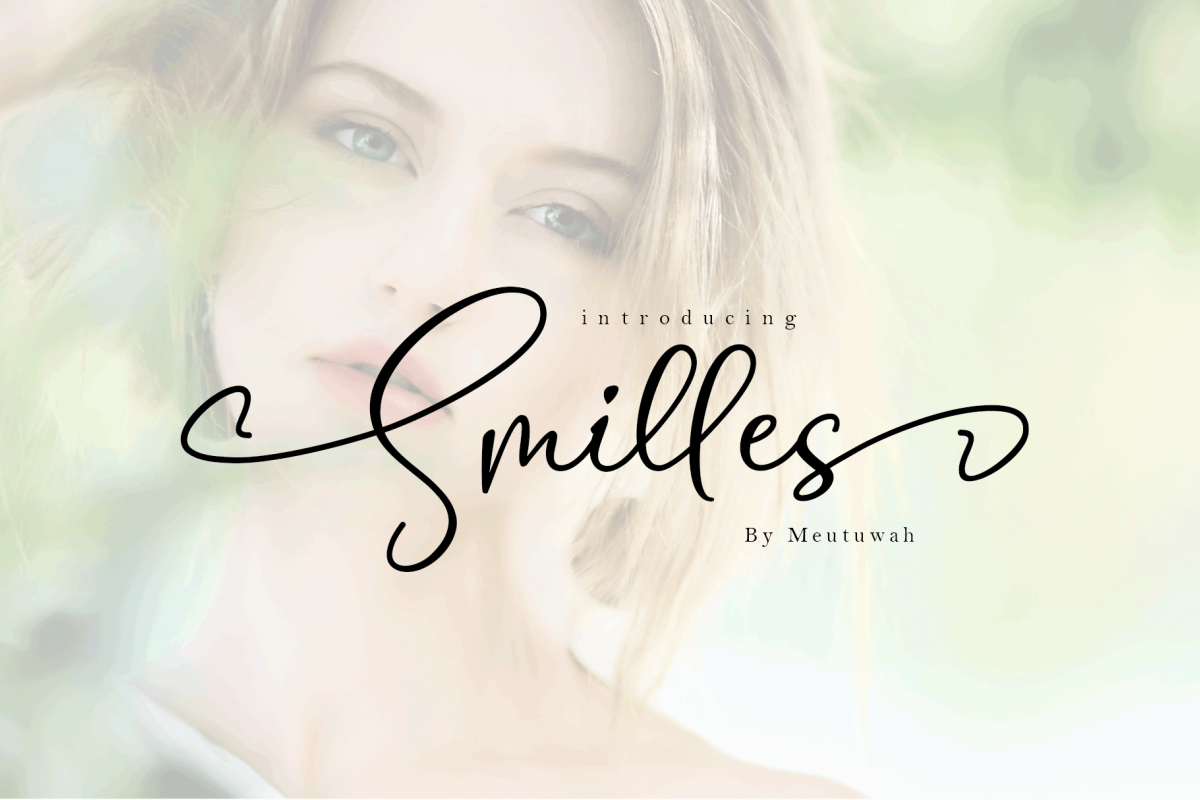
Created By Meutuwah
Smilles Script Font
Smilles
Smilles is another lovely modern calligraphy typefaces, which is combining the style of classic calligraphy with an modern style. combines from copperplate to contemporary typeface with a dancing baseline, modern and elegant touch. including initial and terminal letters, alternates, and ligatures.
Can be used for various purposes.such as headings, logos, wedding invitation, t-shirt, letterhead, signage, lable, news, posters, badges etc.